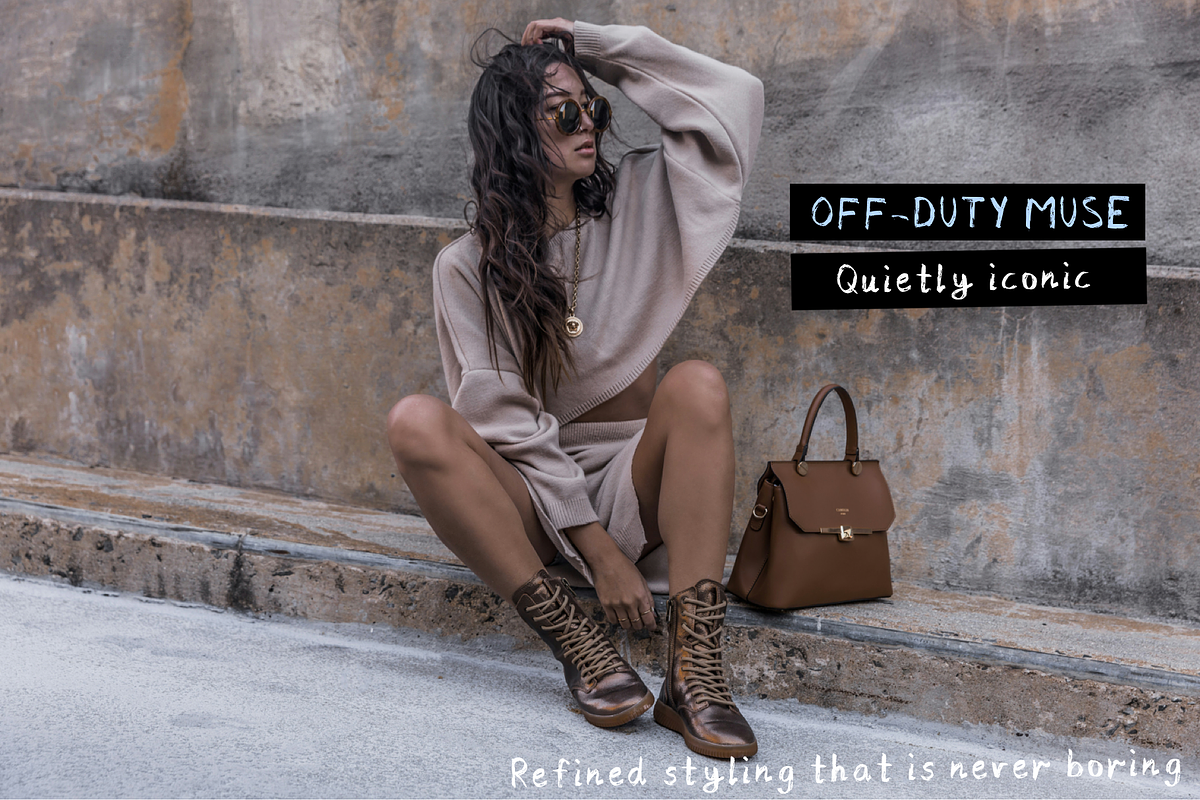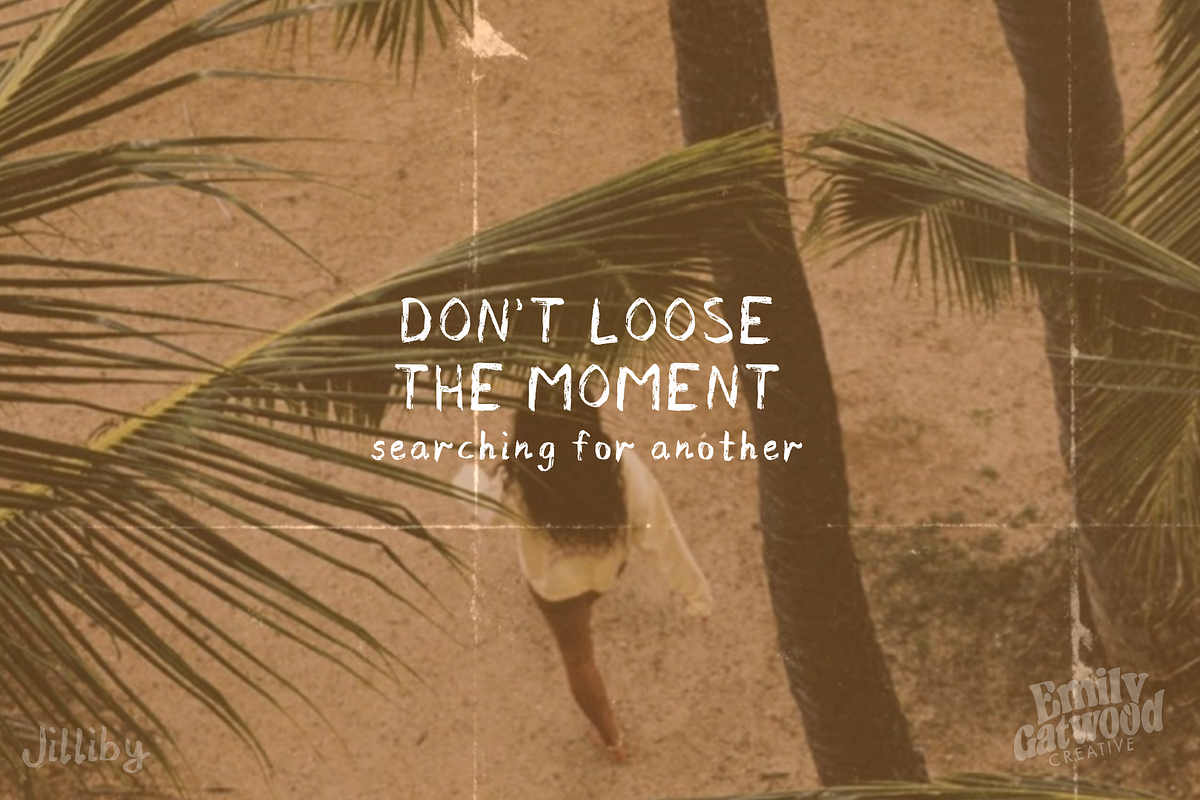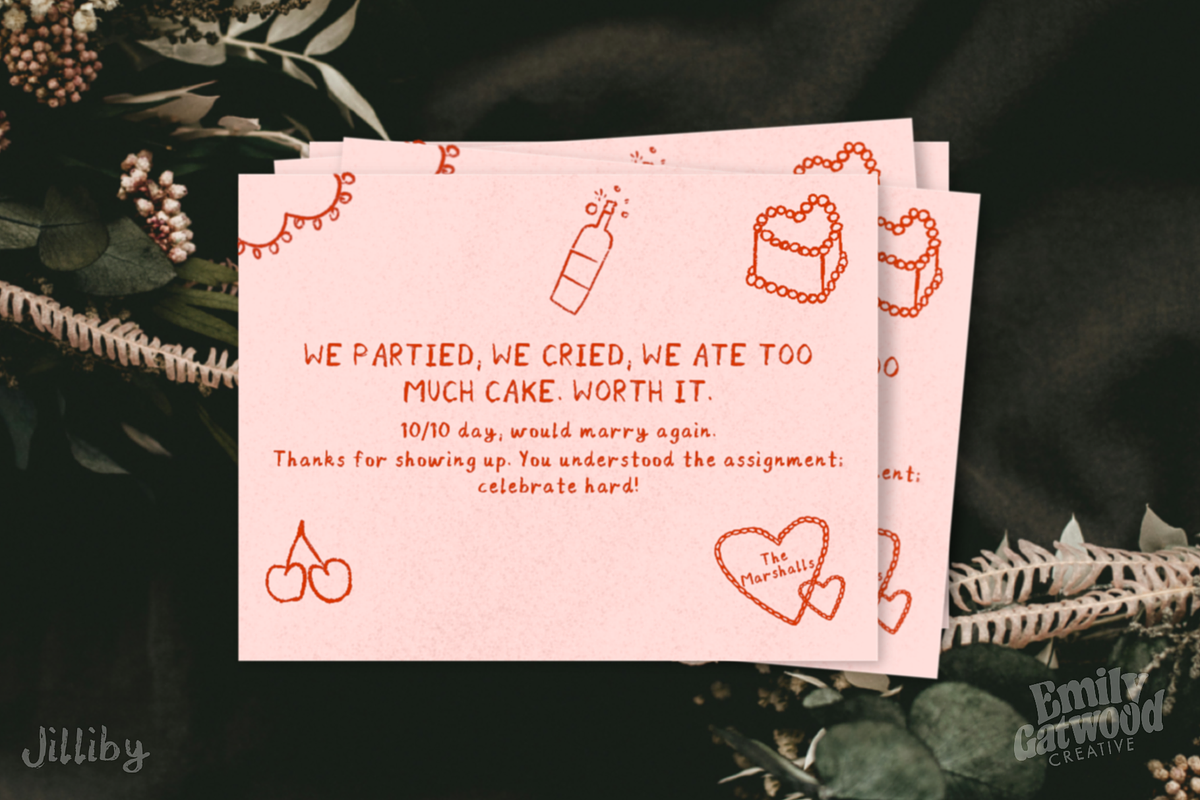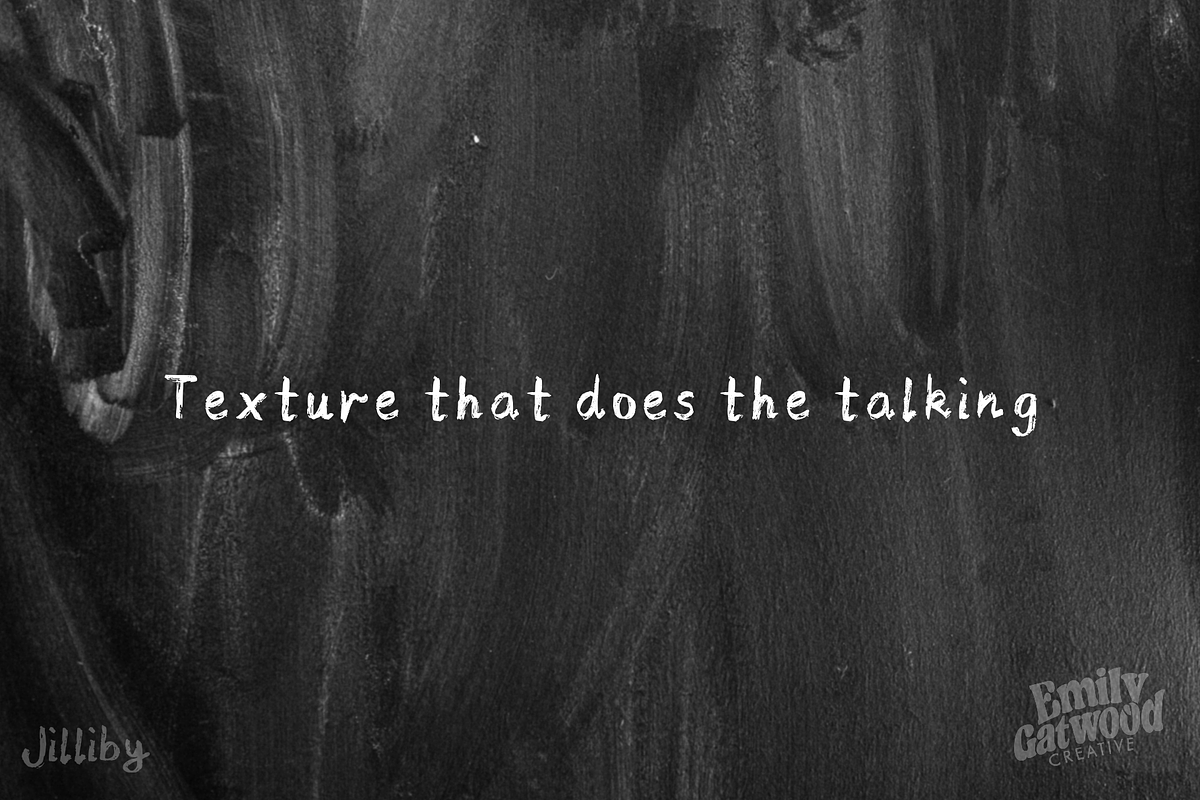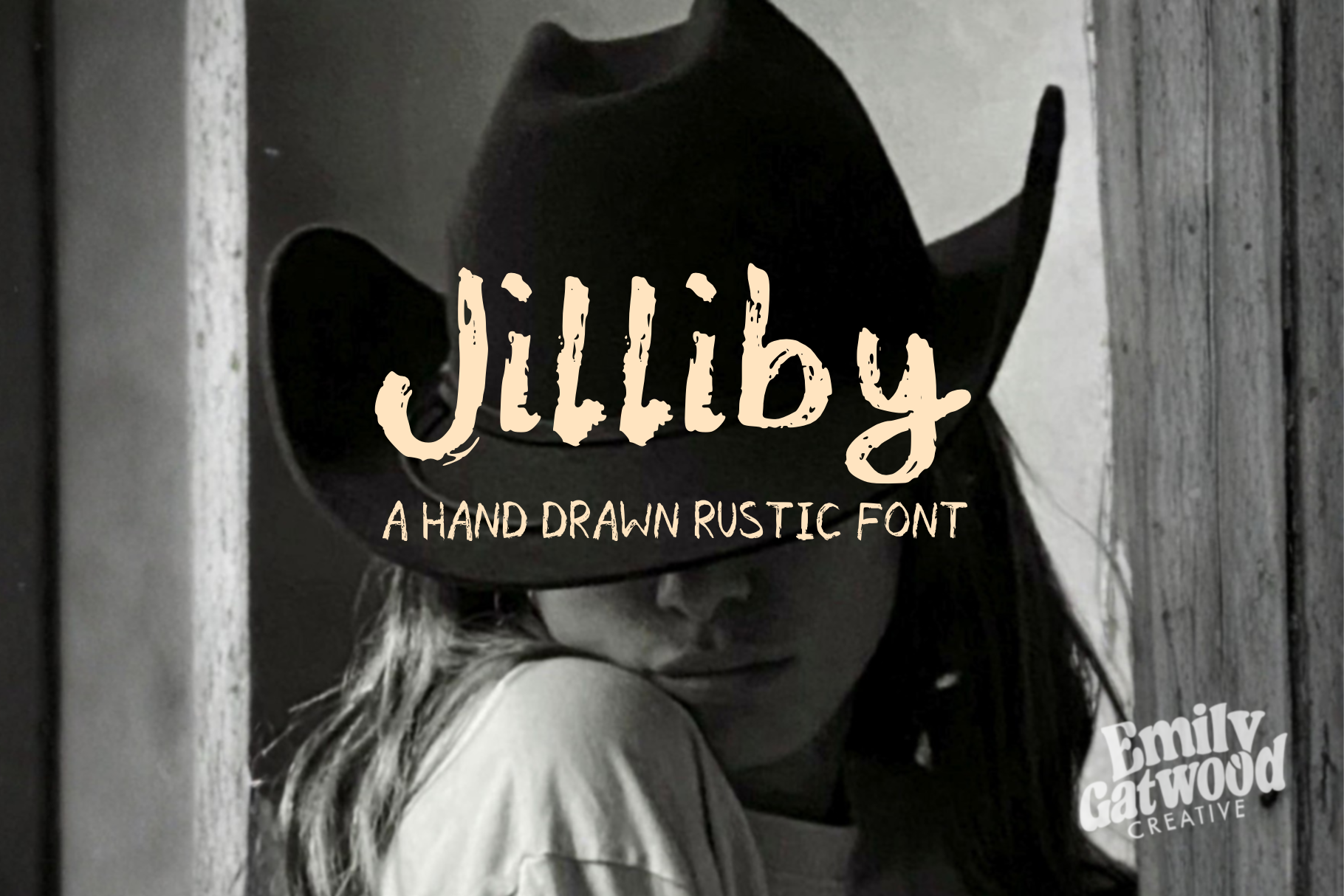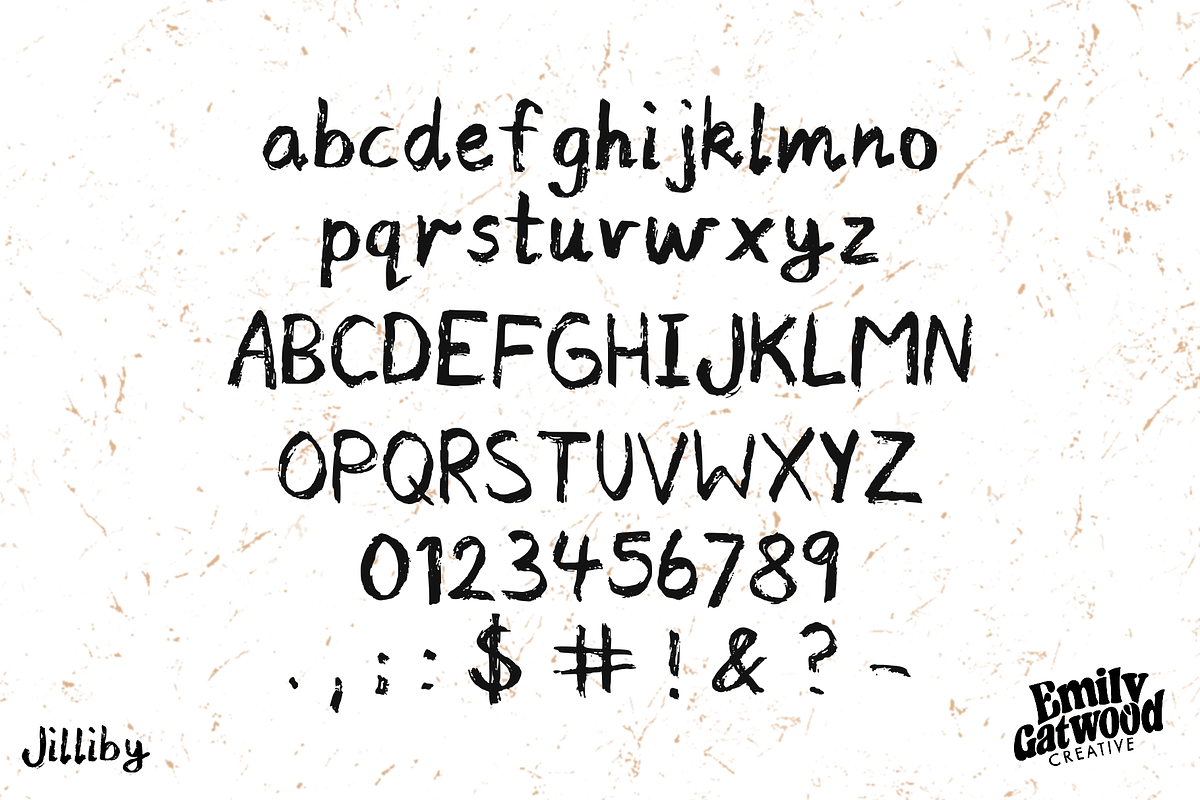
Jilliby // a hand-drawn rustic font
Meet Jilliby — a rustic, hand-drawn typeface with just the right amount of attitude.
She’s got those subtle flick serifs (the kind you don’t fully notice but definitely feel), a gloriously rough texture, and that perfectly imperfect finish that makes everything look a little more considered and a lot less stock-standard. Hand-drawn with a wild side, Jilliby brings that extra bit of personality without tipping into chaos — it’s all intentional.
Jilliby leans a little country, a little rebellious. Think cowgirl tipping her hat, dust on your boots, but make it polished. She’s just as at home on a heartfelt wedding thank you card as she is headlining an up-market stylist flyer that needs a touch of edge.
It’s the kind of font that does both — soft and personal, or bold and confident — without trying too hard. Texture that does the talking, so you don’t have to overwork the design.
Use her when your design needs: – warmth without being twee – texture without the mess – personality without shouting
Basically… when you want it to feel like you made it, not downloaded it.